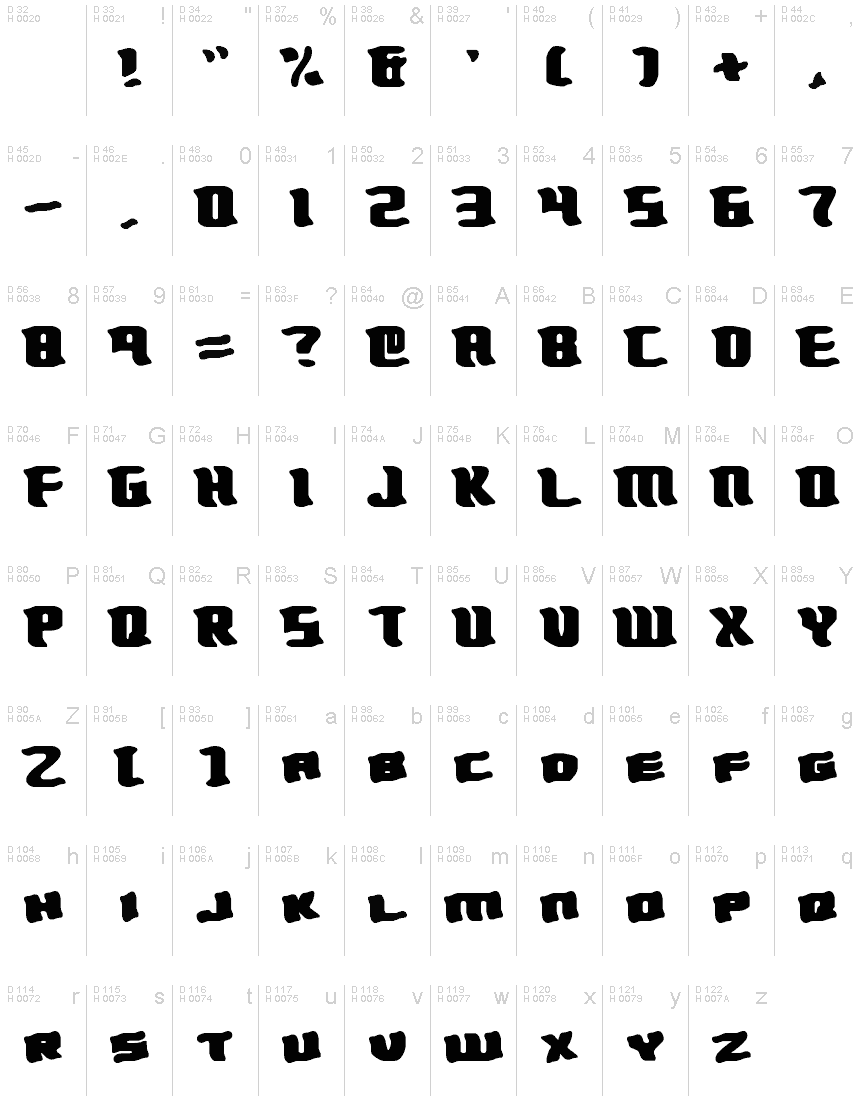
Turmoil BRK
Turmoil BRK is a display font with an attitude, crafted by the innovative ÆNIGMA FONTS. Its extra-bold weight and expanded width make it undeniably assertive, while the distorted style adds a dynamic and unconventional edge. This font doesn't just speak; it shouts, making it perfect for projects needing a powerful visual punch.
The aesthetic appeal of Turmoil BRK lies in its ability to stand out. With its distorted characters that seem to ripple with energy, it captures the eye and holds attention. This makes Turmoil BRK especially suitable for bold headlines, striking posters, edgy branding, or any creative endeavor where making a strong impression is key.
Embrace the creative chaos with Turmoil BRK—a font that's as versatile as it is visually compelling.